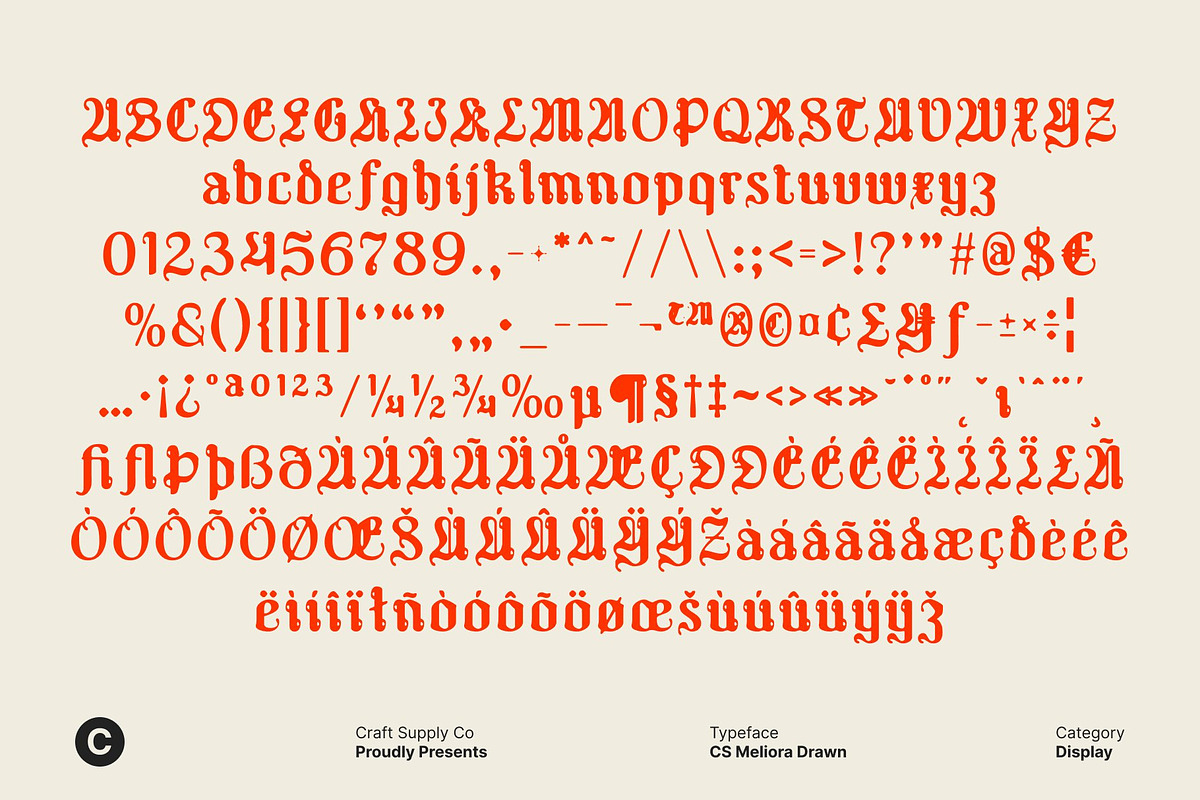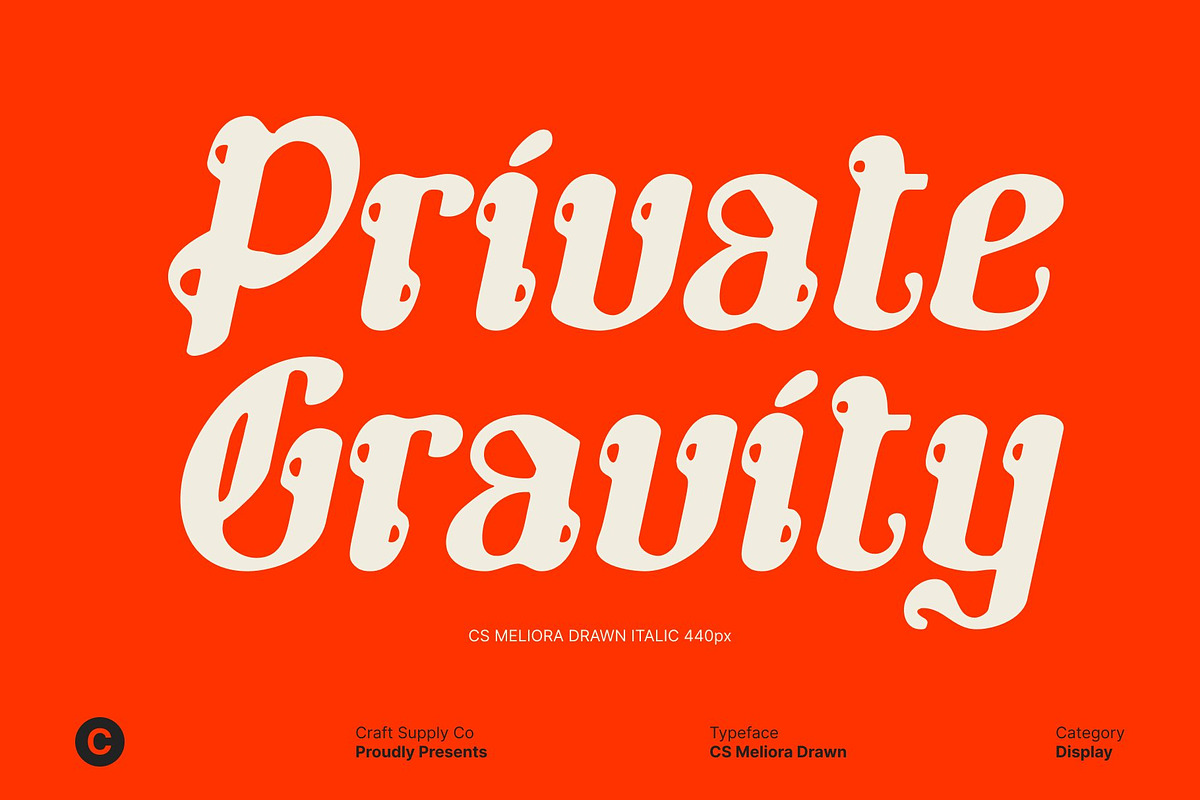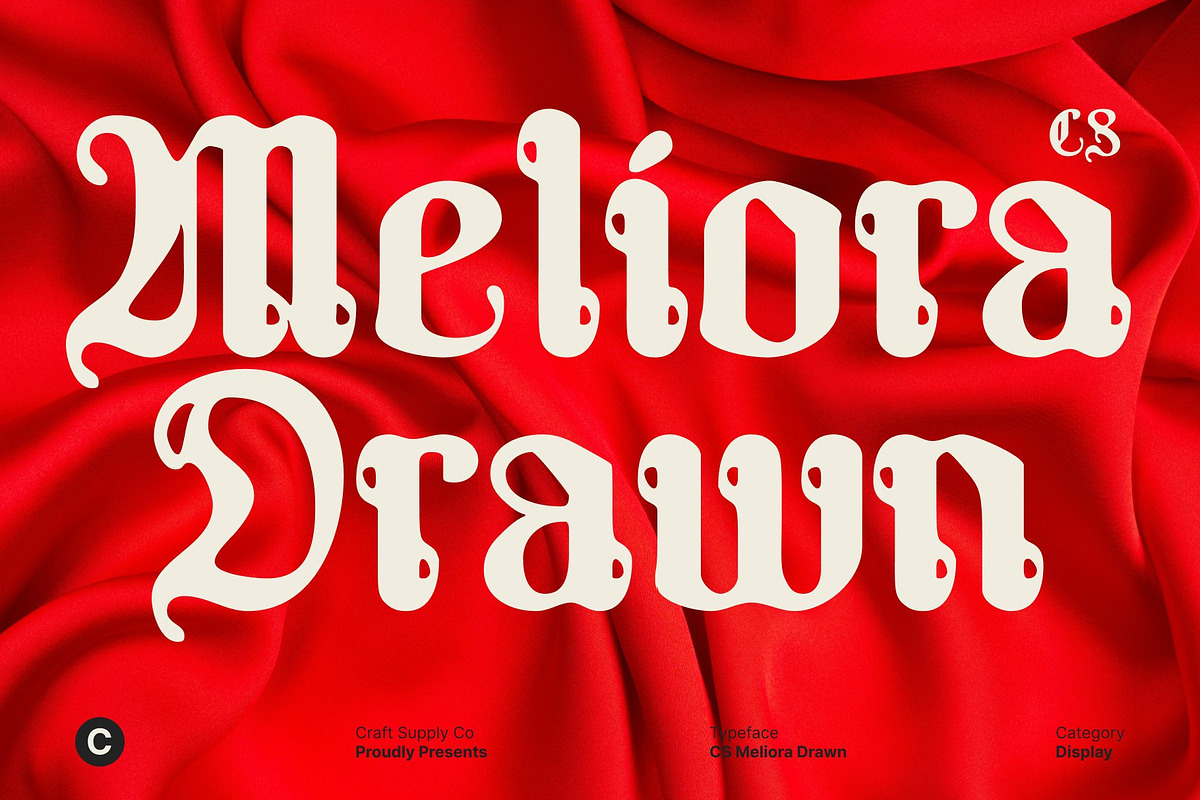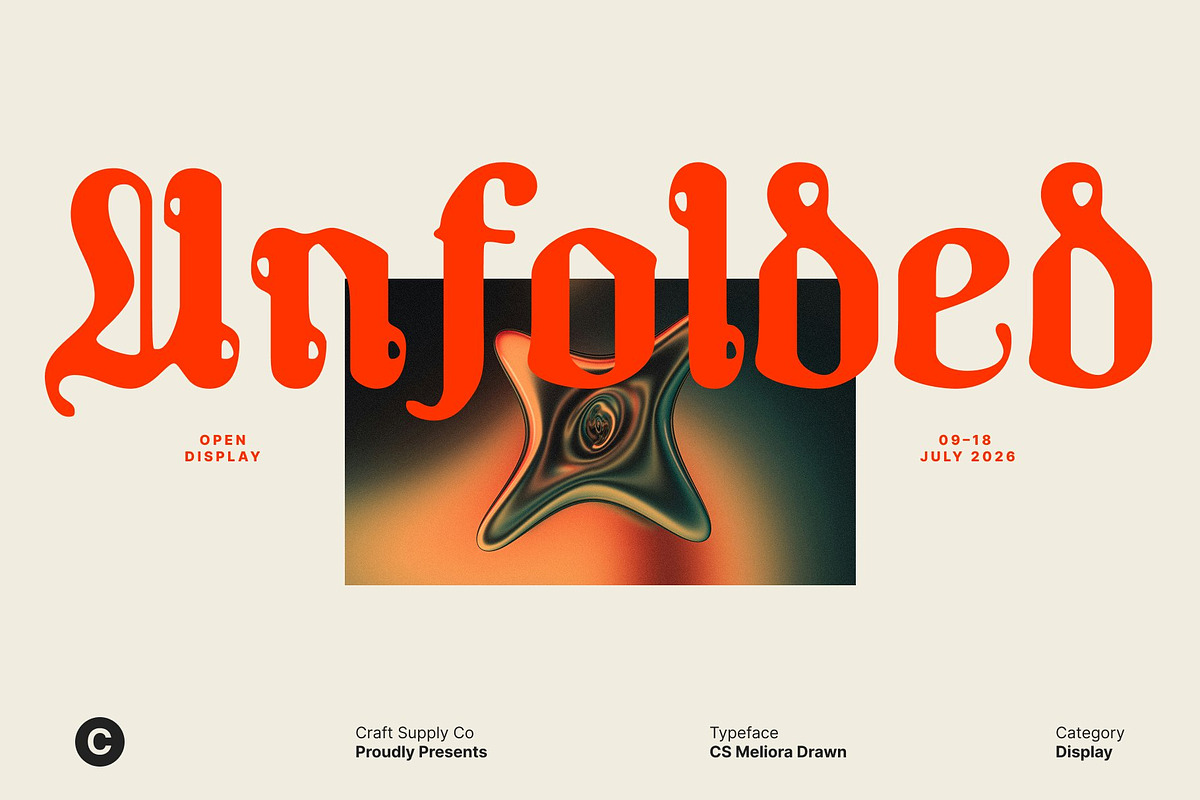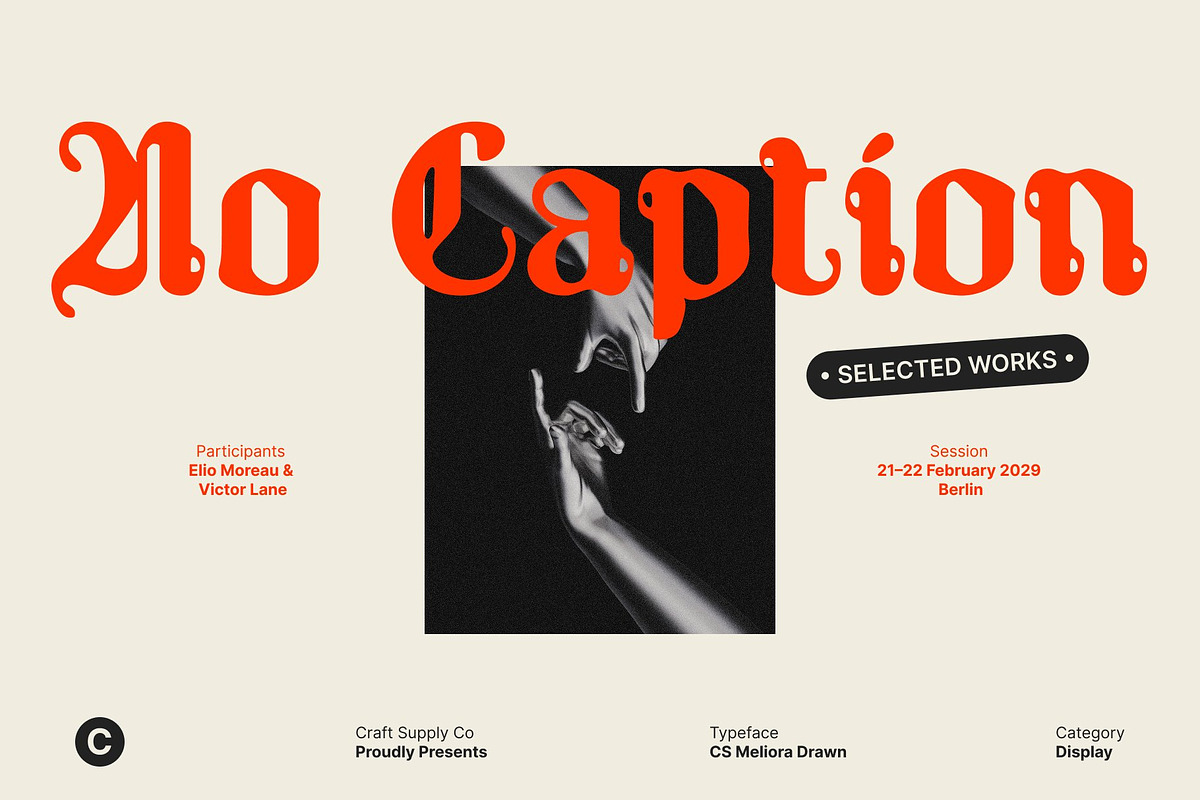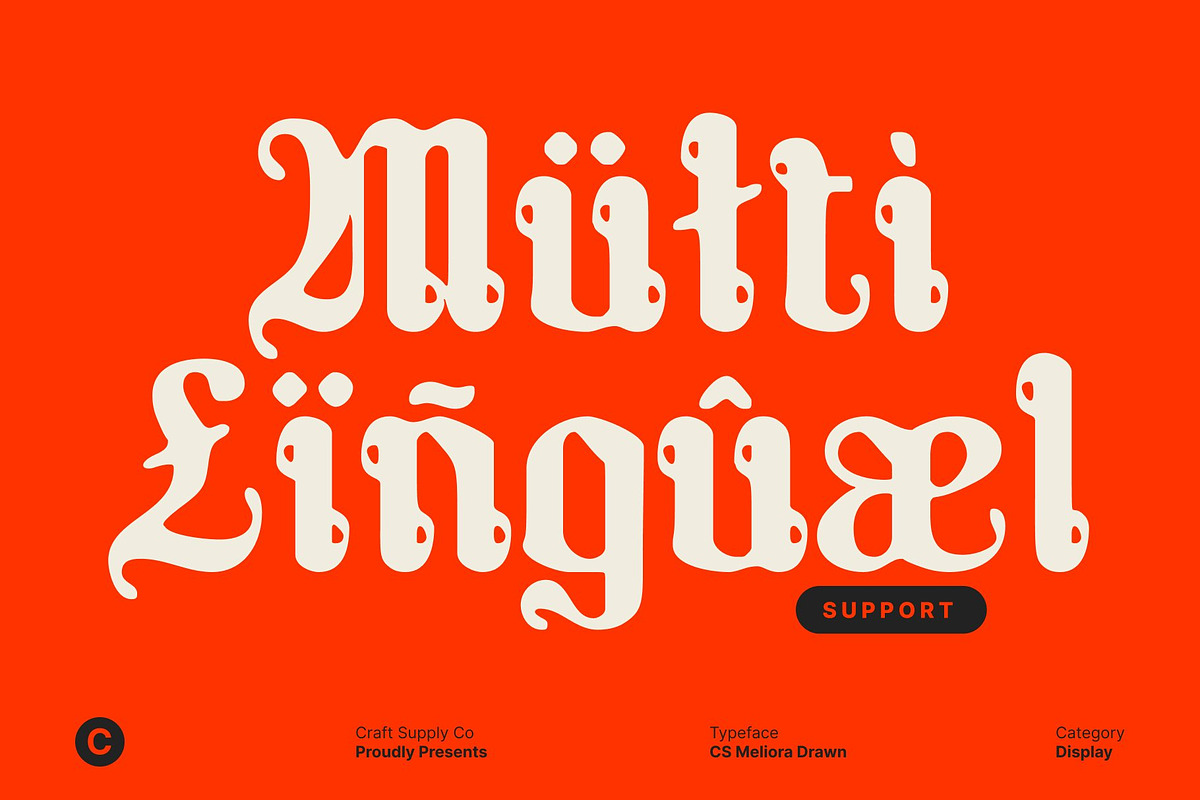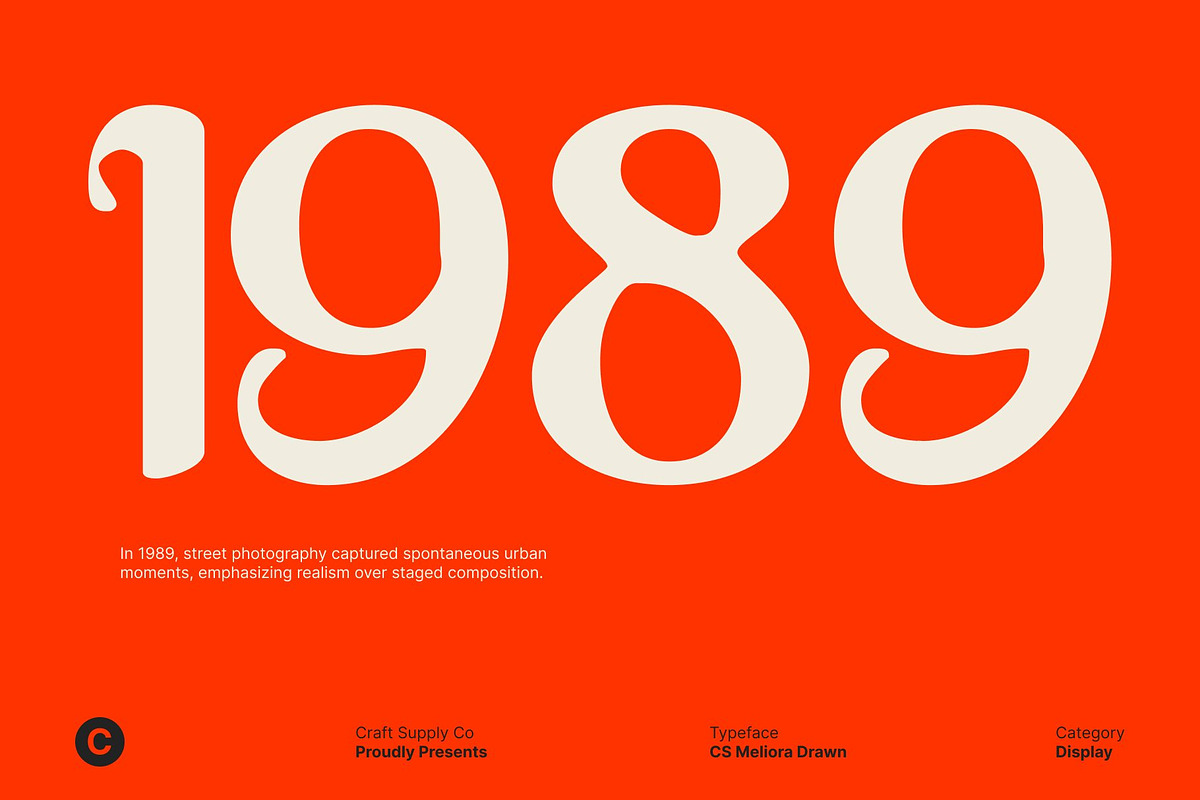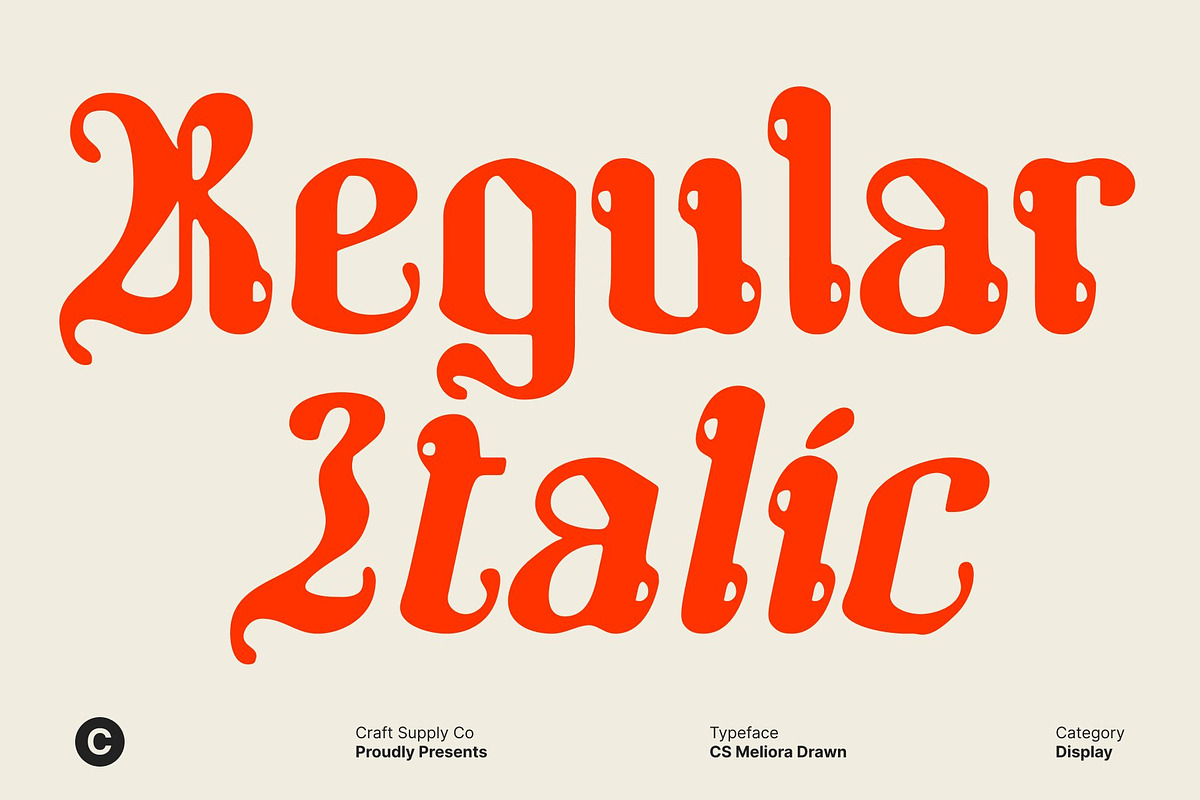
CS Meliora Drawn
CS Meliora Drawn – Modern Blackletter Display Font with Bold Expression
Modern Blackletter Display Font with Drawn Texture This is a modern blackletter display font that reinterprets classic Gothic typography through a contemporary lens. Rooted in tradition yet refined for today’s visual culture, this typeface features bold, angular strokes and ornamental blackletter character, softened by cleaner contours and a subtle hand-drawn texture.
Bold Tradition with Contemporary Precision This font preserves the commanding presence of traditional blackletter while reducing visual density for improved clarity and impact. Its architectural letterforms feel strong and deliberate, delivering a confident rhythm that commands attention. The modern refinements ensure the font remains readable and visually balanced, even in bold display settings, without losing its historical authority.
Dramatic Style for Creative Impact With its high contrast and expressive forms, brings drama and intensity to any composition. The font projects confidence, rebellion, and artistic depth, making it a powerful choice for designs that demand a strong identity. The drawn texture enhances its handcrafted feel, adding emotional character that elevates posters, music visuals, and statement-driven layouts.
Versatile for Music, Editorial, and Branding Designed for bold creative applications, excels in music branding, editorial headlines, logos, packaging, and poster designs. Its fusion of Gothic heritage and modern styling allows designers to create visuals that feel rich, expressive, and forward-looking. For projects that seek a dramatic tone with historical depth and contemporary edge.